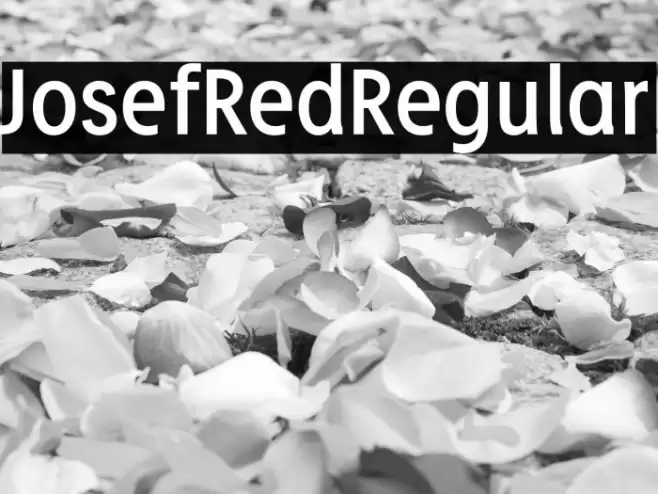
JosefRed-Regular Font
JosefRed-Regular Description
This font exhibits a clean and modern sans-serif style, characterized by its geometric shapes and uniform stroke widths. The uppercase letters are bold and assertive, with a slightly condensed appearance that enhances readability. The lowercase letters maintain a consistent height, contributing to a balanced and harmonious look. The numerals are clear and straightforward, matching the overall aesthetic of simplicity and functionality. Special characters are well-integrated, ensuring versatility in various design contexts. This font is suitable for both digital and print media, offering a professional yet approachable feel.
A modern sans-serif font with geometric shapes and uniform strokes from Uncategorized fonts.
- Proposed Projects: Ideal for branding, web design, editorial layouts, and corporate materials.